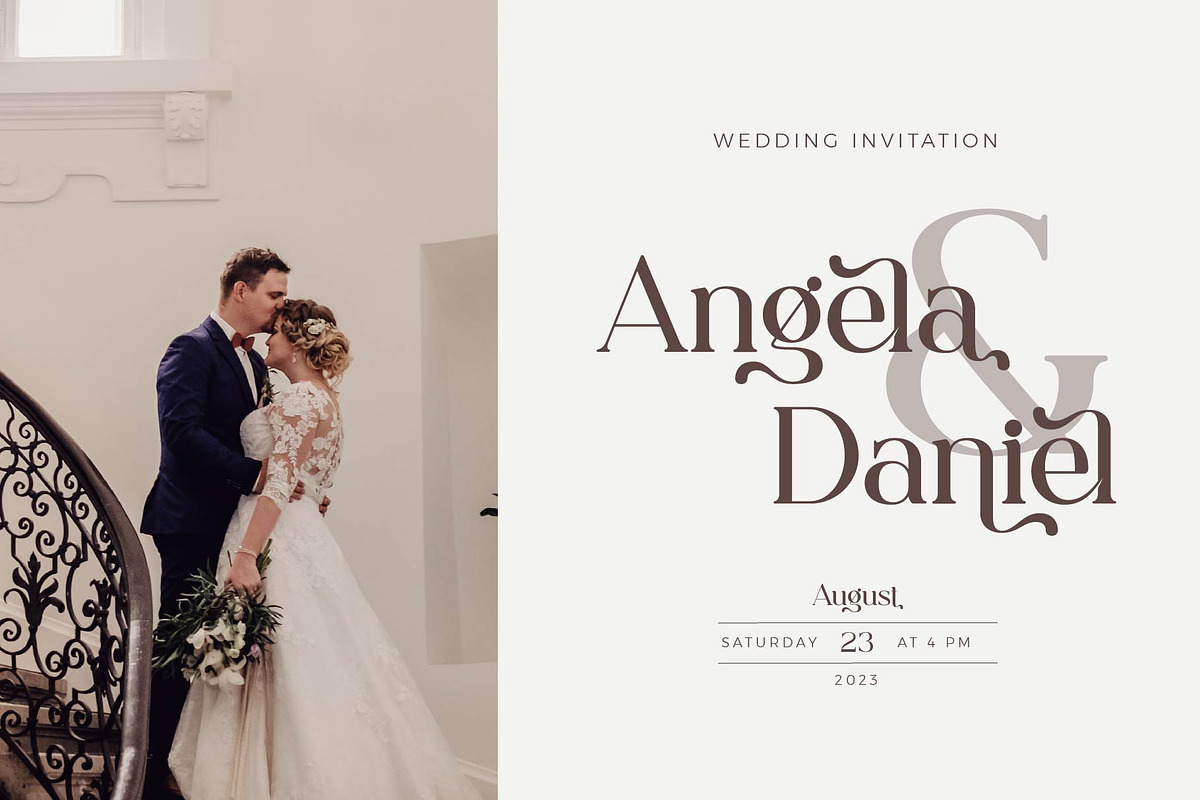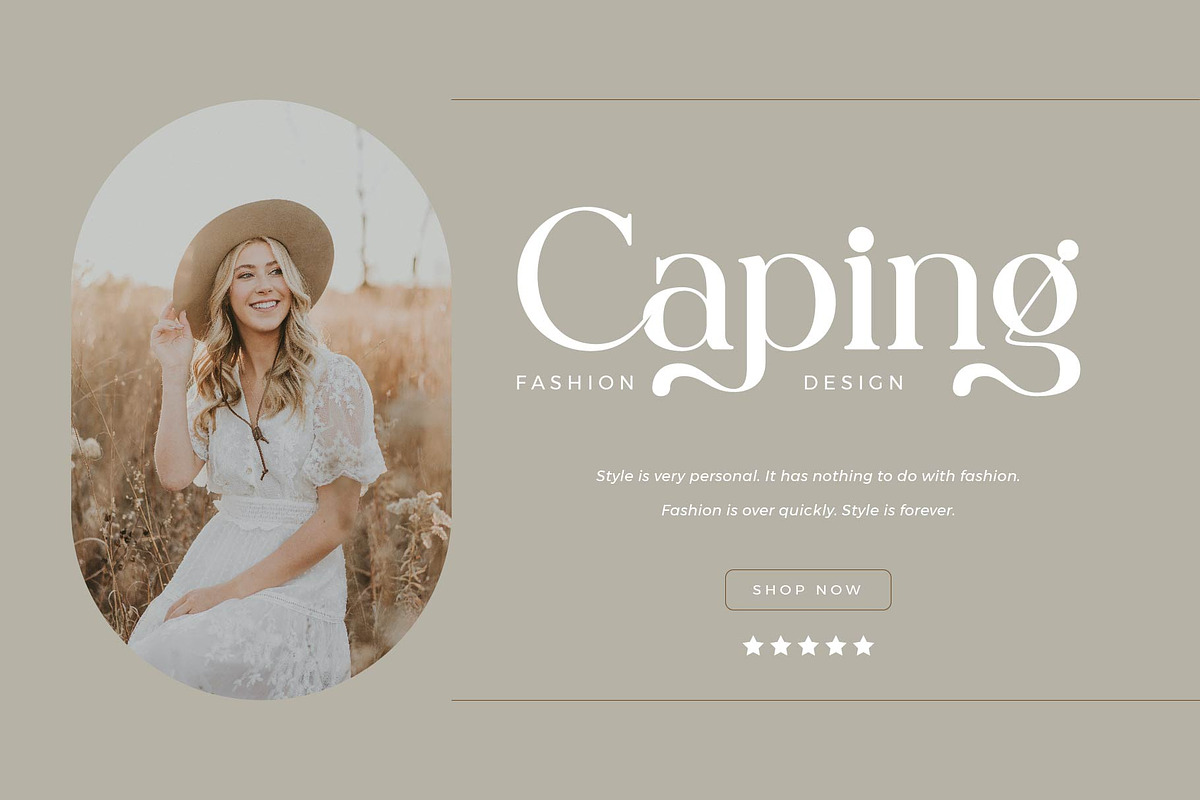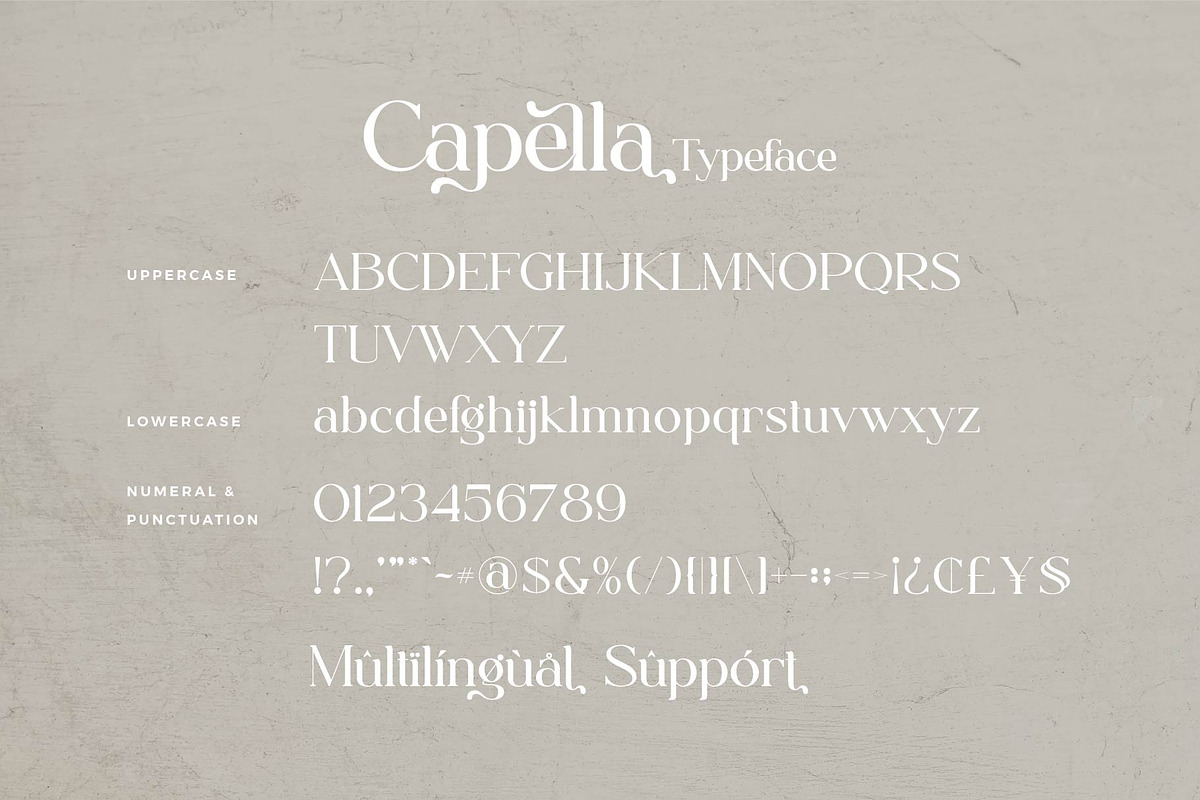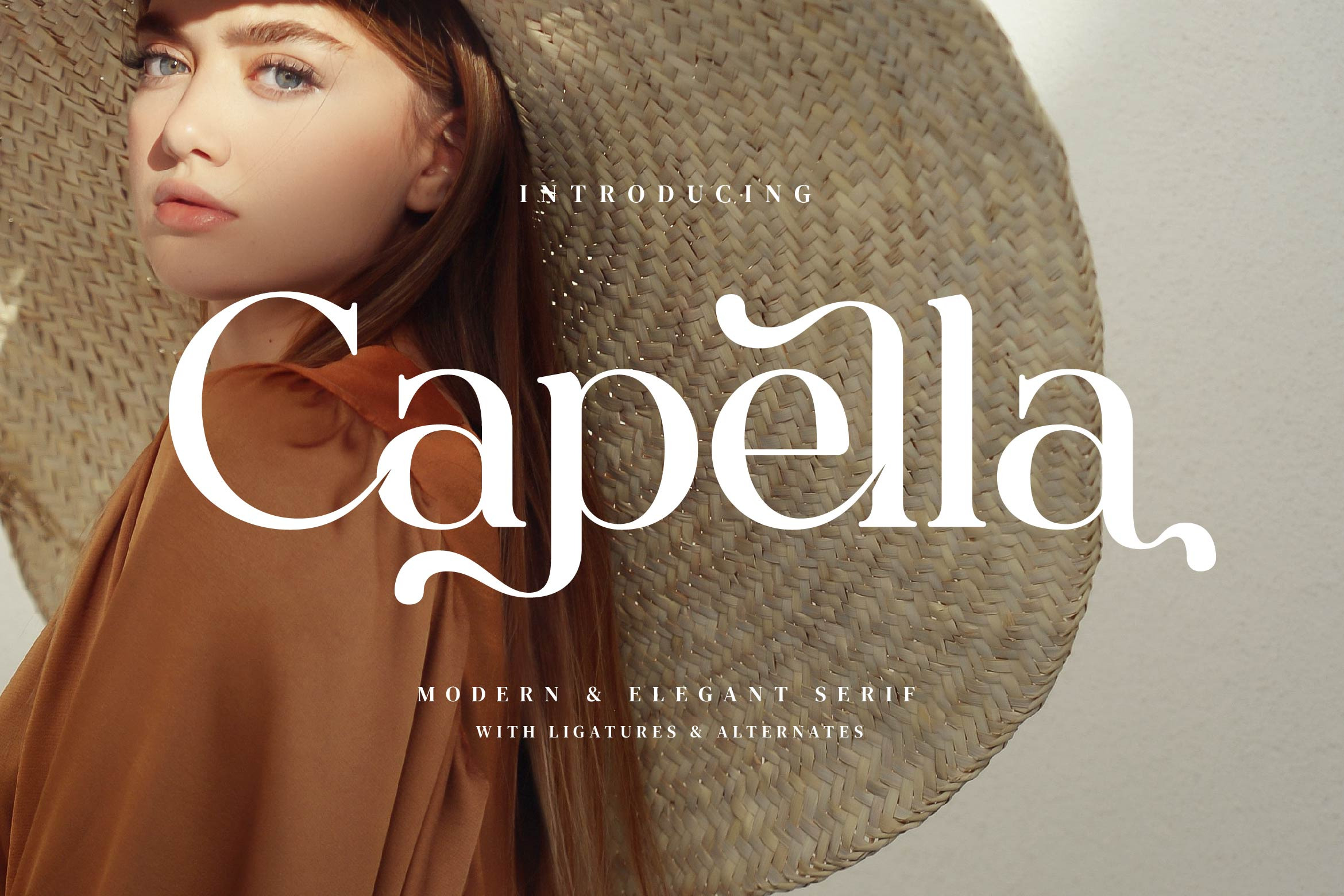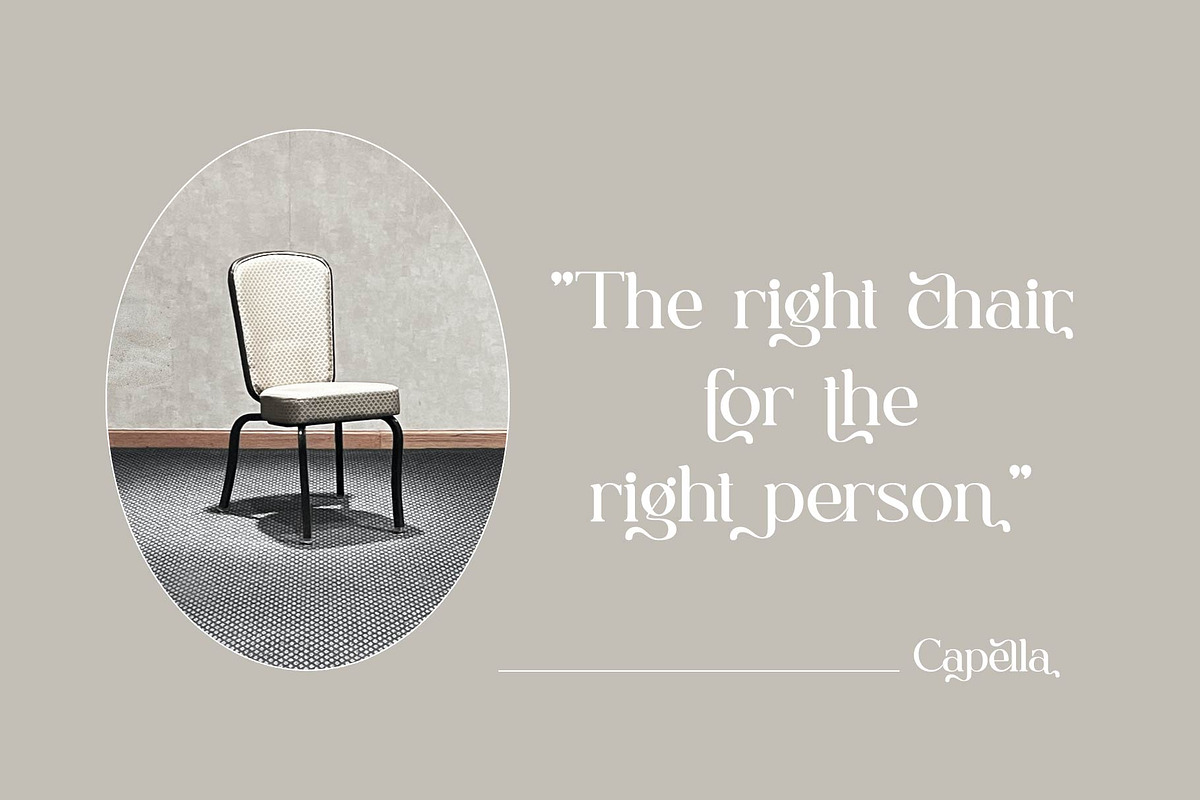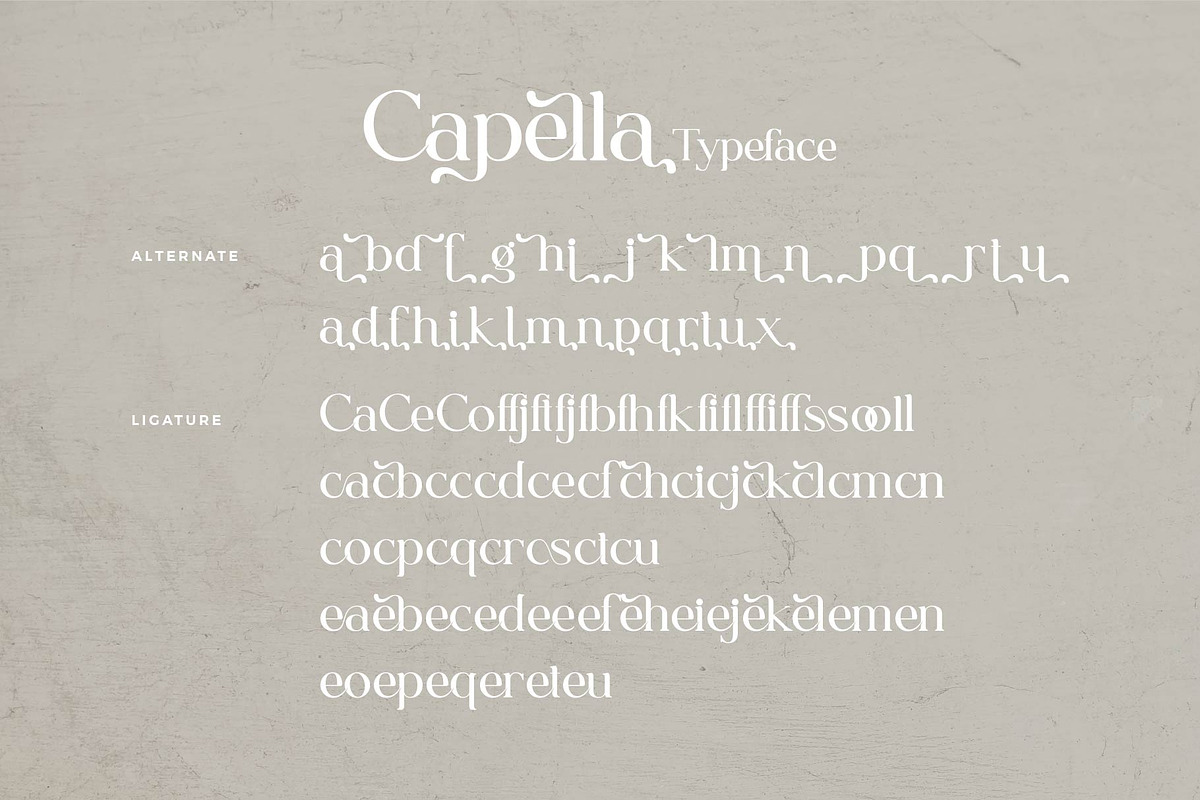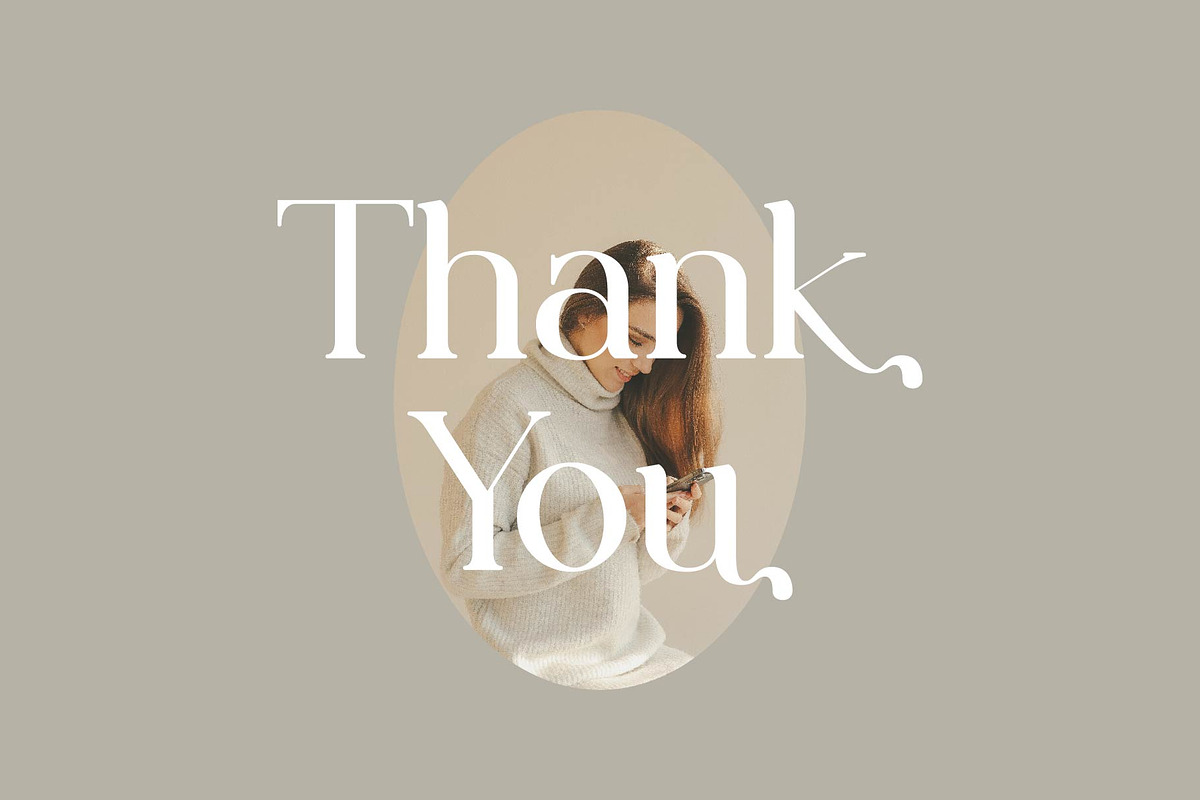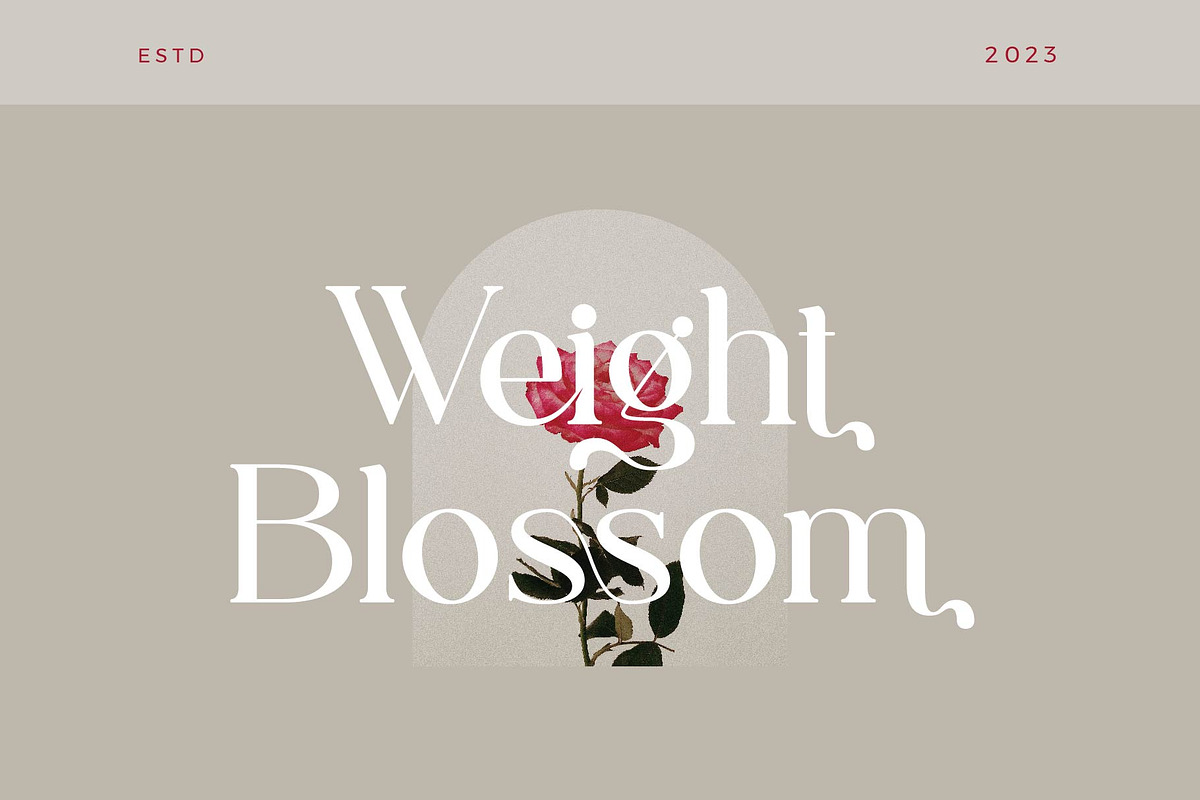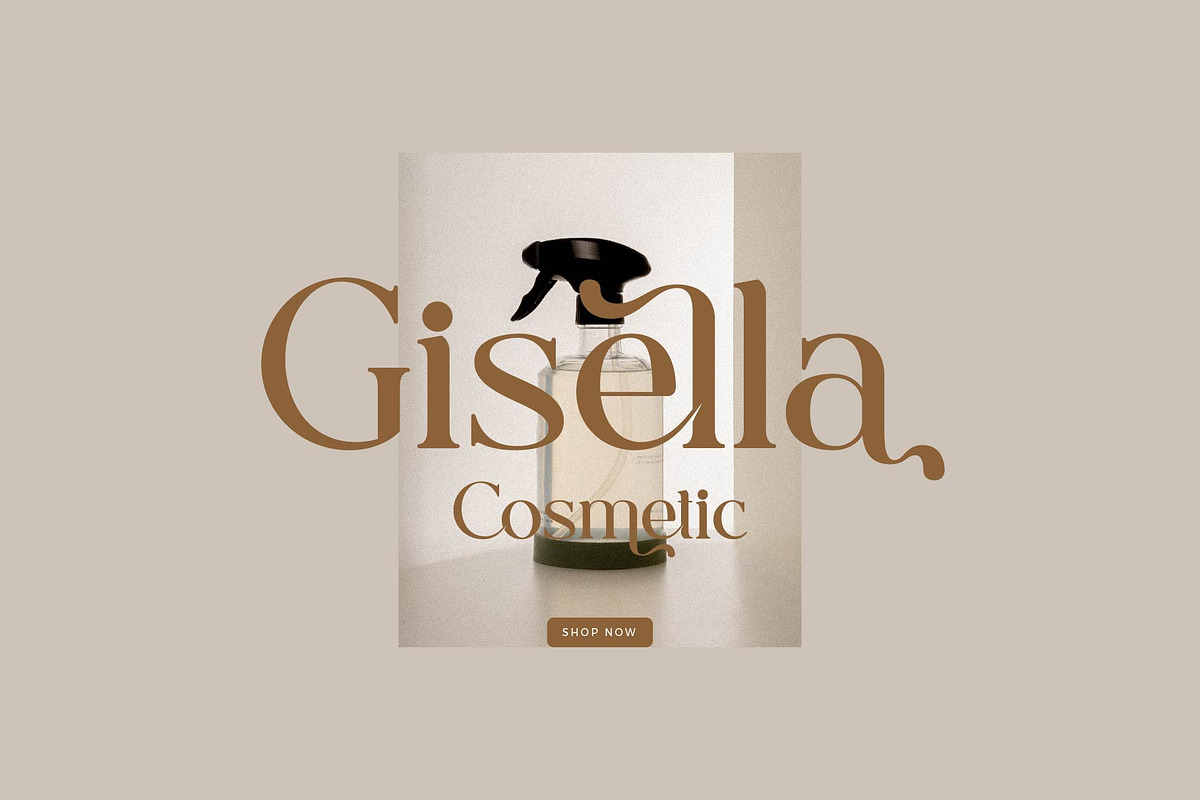
Capella - Stylish Ligature Font
Capella Stylish Ligature Typeface, inspired by the famous minimalist logo perfect for the purposes of designing templates, brochures, videos, advertising branding, logos and more.